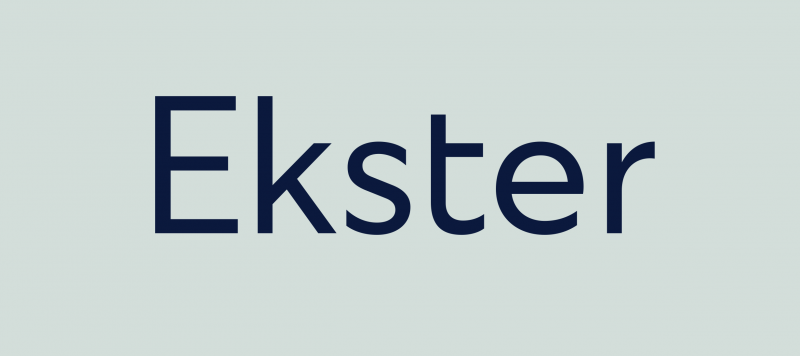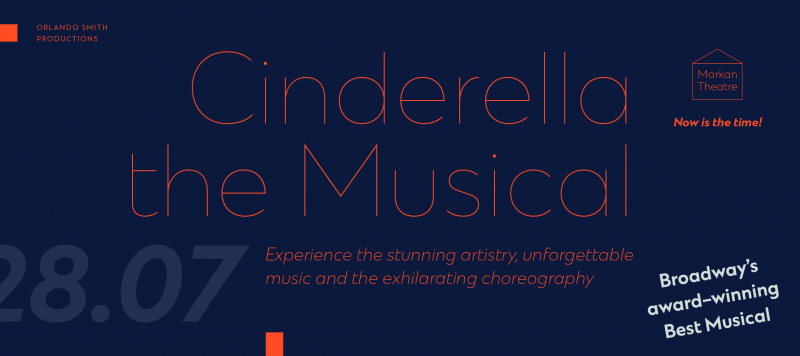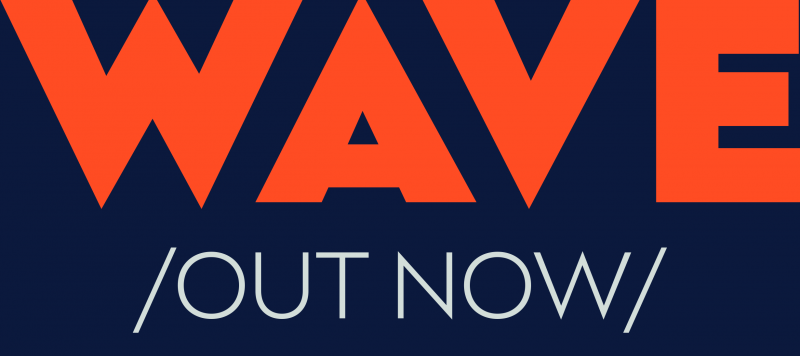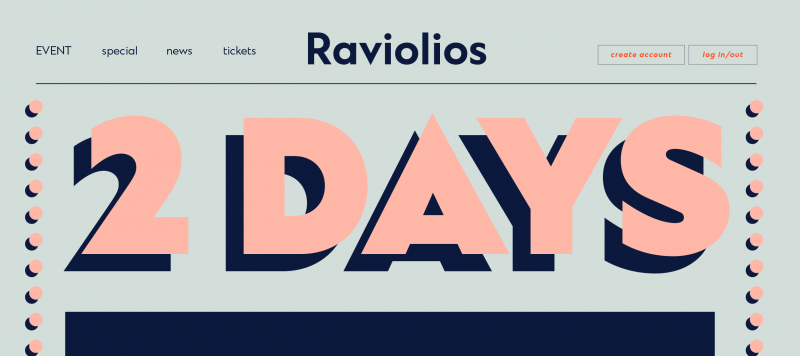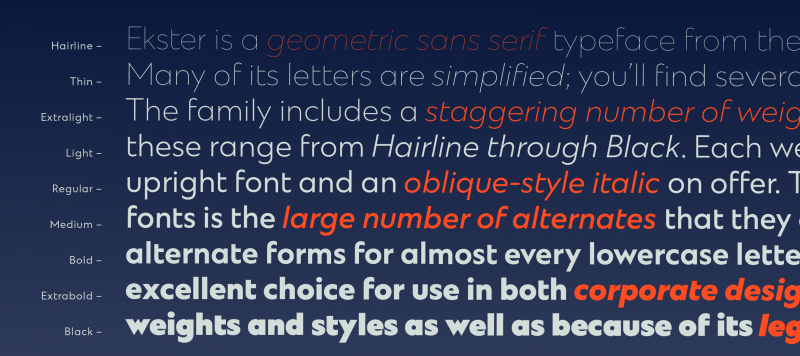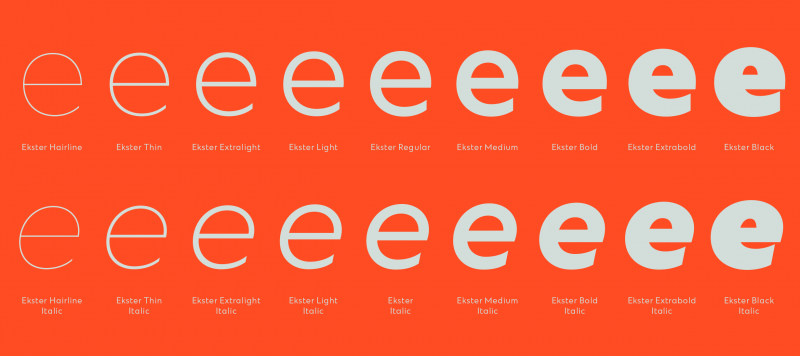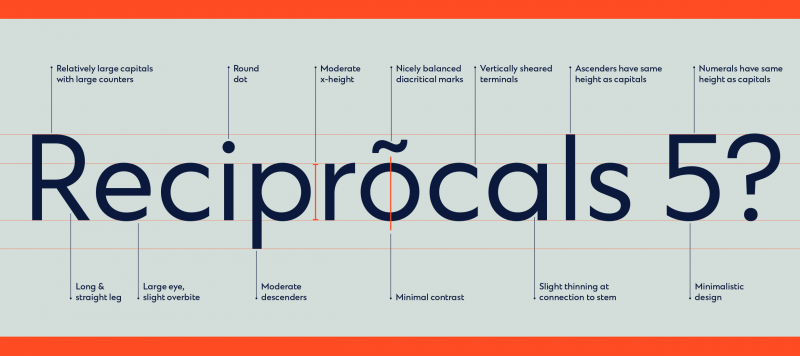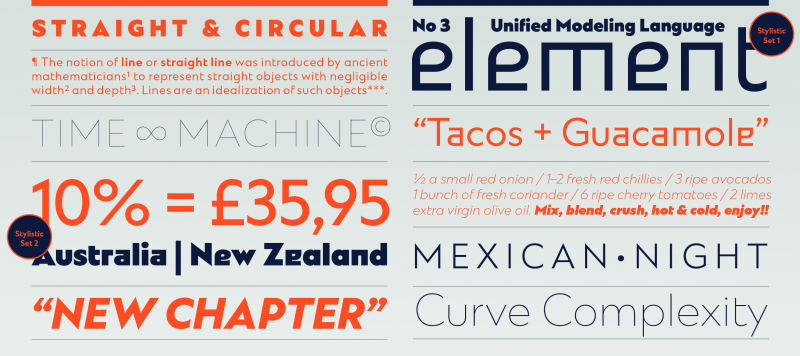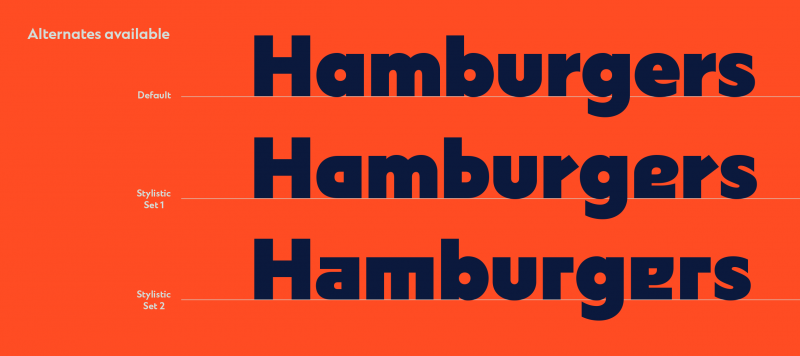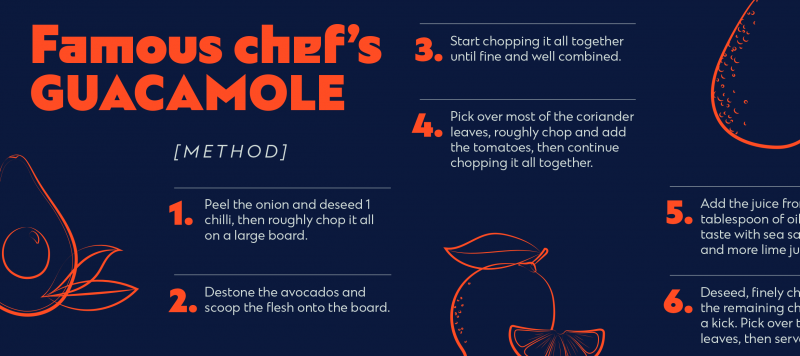
Ekster is a geometric sans serif typeface from the Parisian designer Ilya Naumoff. Many of its letters are simplified; you’ll find several places in the typeface where the connection of bowls to stems isn’t fussy, for example, and horizontal strokes – like those in the ‘f’ and the ’t’ along the x-height – don’t bisect their letters’ main vertical stems (but populate the left-hand side only instead). Ekster’s lowercase ‘u’ is also symmetrical. The family includes a staggering number of weights – eight in total, and these range from Thin through Black. Each weight has both an upright font and an oblique-style italic on offer. The letterforms in all of the Ekster weights are drawn with virtually monolinear strokes. Ekster’s x-height is moderate, and the lowercase’s ascenders rise up to the same height as the capital letters and the numerals. However, the best feature of Ekster’s fonts is the large number of alternates that they contain. Ekster includes alternate forms for almost every lowercase letter, and some even have more than one alternate available – like the ‘a’, ‘e’, and ‘r’. Ekster is an excellent choice for use in both corporate design and editorial design projects, both because of its range of font weights and styles as well as because of its legibility in text.
Available Style | Hairline, Hairline Italic, Thin, Thin Italic, Extralight, Extralight Italic, Light, Light Italic, Regular, Italic, Medium, Medium Italic, Bold, Bold Italic, Extrabold, Extrabold Italic, Black, Black Italic |
Classification | Sans |